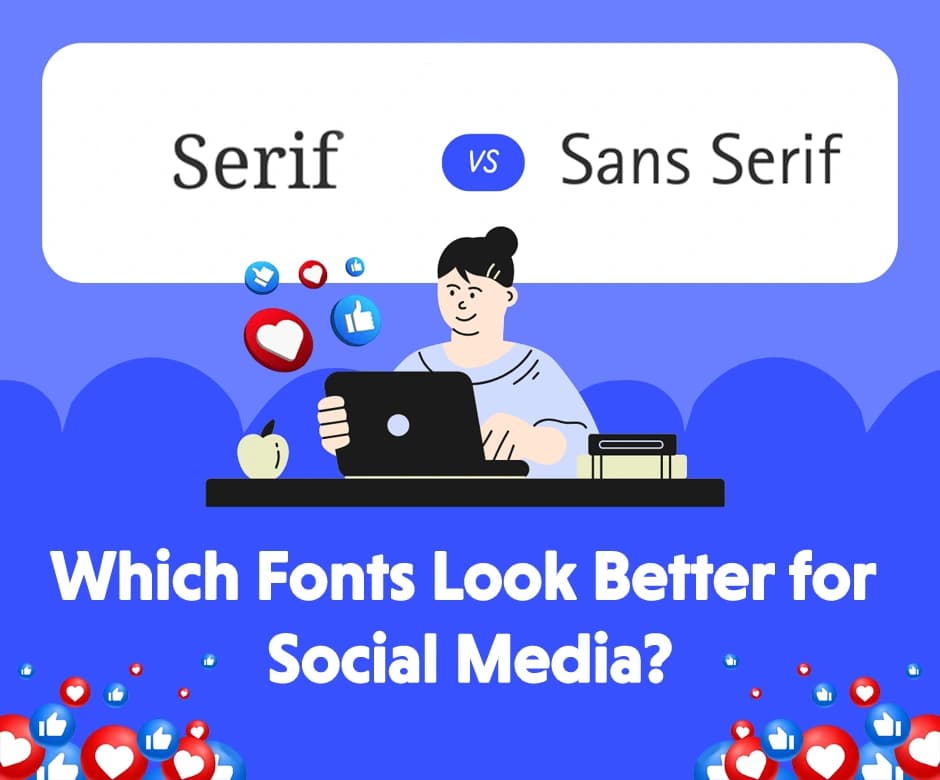
Typography plays a crucial role in how content is perceived on social media, often determining whether a post captures attention or gets scrolled past. Among the most common design choices is the debate between serif and sans-serif fonts. While both have long-standing histories in design, their performance can vary greatly in fast-paced, screen-heavy social platforms.
From readability on mobile devices to brand personality and engagement, font choice matters more than many realize.
This article explores the differences between serif and sans-serif fonts and examines which styles truly look and perform better on social media.
Serif fonts are typefaces characterized by small decorative strokes, known as serifs, attached to the ends of letters. These strokes can appear as little lines, curves, or tapered extensions, giving serif fonts a more detailed and traditional appearance.
Historically, serif fonts originated from carved inscriptions in stone and later became dominant in print media such as books, newspapers, and academic publications.
Because of their structured and refined look, serif fonts are often associated with professionalism, authority, heritage, and elegance.
These fonts help guide the eye along lines of text in long-form reading, which is why they’ve been widely used in print. However, their intricate details can behave differently on digital screens, especially in fast-scrolling social media environments, making their use both powerful and context-dependent.
Sans serif fonts are typefaces that lack the small decorative strokes found in serif fonts. The term sans literally means “without,” highlighting their clean, straightforward letterforms.
These fonts emerged later in design history and gained popularity with the rise of modernism, digital interfaces, and screen-based media.
Visually, sans serif fonts appear simple, minimal, and uncluttered, making them highly legible on screens of all sizes.
Their uniform strokes and open shapes allow text to remain clear even at small sizes or low resolutions, an important advantage for social media.
As a result, sans serif fonts are commonly associated with modernity, clarity, friendliness, and efficiency, and they dominate most contemporary digital platforms and user interfaces today.
Serif fonts can be powerful on social media when used intentionally, but they are not universally suitable for every platform or content type. Their decorative nature gives them strong character, yet that same detail can become a limitation in fast-scrolling, mobile-first environments.
Serif fonts naturally stand out in feeds dominated by clean, minimal sans serif typography. Their distinctive letterforms can immediately signal tone and positioning, especially for brands aiming to appear refined or authoritative.
Key advantages include:
When used at appropriate sizes, serif fonts can slow the scroll and draw attention through contrast rather than volume.
Despite their strengths, serif fonts face real challenges in digital and social contexts. Most social media content is consumed quickly on small screens, where fine details may not render well.
Common drawbacks include:
These issues make serif fonts less suitable for dense text, captions, or fast-moving content.
Serif fonts perform best when they are given space to breathe and are used strategically rather than universally.
They are especially effective for:
Sans serif fonts dominate social media design for a reason. Built for clarity and simplicity, they align naturally with digital screens, fast scrolling behavior, and mobile-first consumption. While they may lack the ornamentation of serif fonts, their efficiency makes them highly reliable across platforms.
Sans serif fonts are designed to perform well in digital environments, especially where speed and legibility matter most. Their clean letterforms ensure messages are understood instantly, even at small sizes.
Key advantages include:
Because of these qualities, sans serif fonts are often the safest and most scalable choice for social media.
Despite their practicality, sans-serif fonts are not without limitations. Their widespread use can sometimes work against differentiation and emotional depth.
Common drawbacks include:
These issues can make content feel forgettable if typography is the only visual driver.
Sans serif fonts excel in situations where clarity, speed, and consistency are critical.
They are especially effective for:
Stylizing fonts on social media platforms like Instagram and Facebook, through emojis, emoticons, or text effects like bolding and italics, can significantly impact engagement and tone.
Serif fonts benefit from subtle stylization, such as a single emoji or decorative symbol, to enhance elegance without cluttering their refined appearance.
Sans serif fonts, being modern and clean, can handle bolder stylization, including multiple emojis, bold text, or playful alignment, to make content feel lively and approachable.
They make posts more fun and expressive. Serifs work with subtle symbols; sans serifs can handle bold styling.